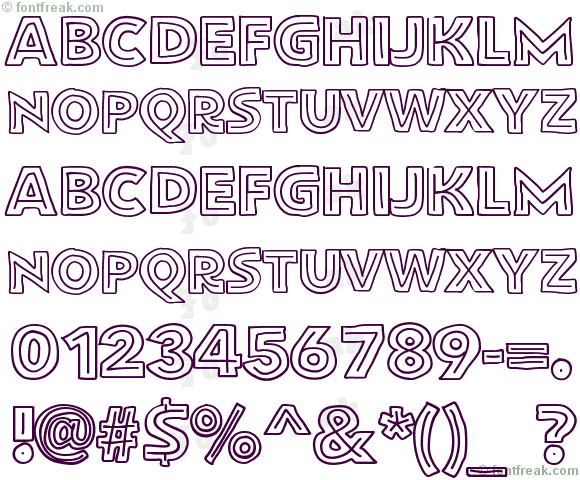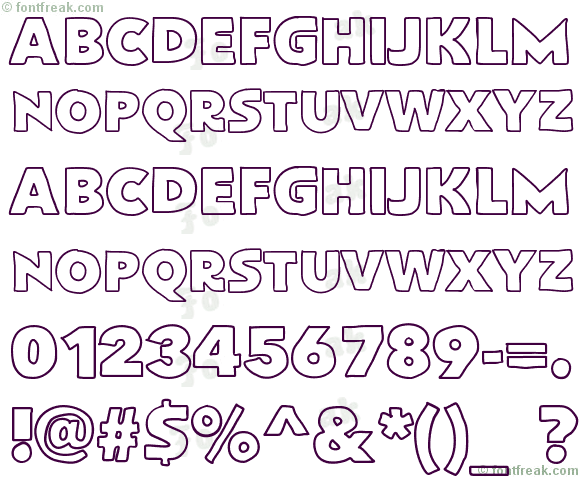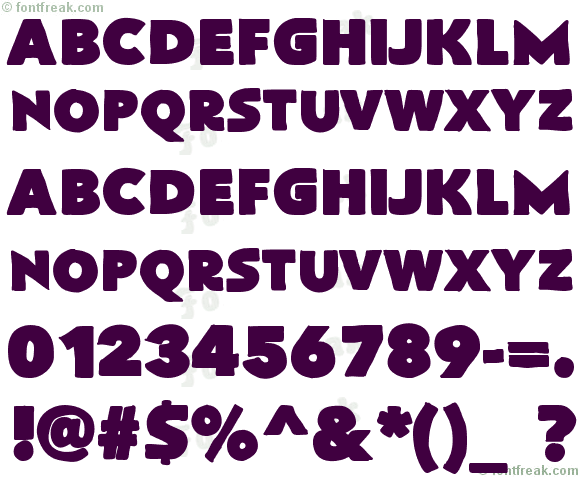
FlatBread
FlatBreadInline
FlatBreadOutline
About FlatBread
FlatBread by Luedecke Design Font Co. is a captivating display font that seamlessly blends modernity with a touch of whimsy. This sans-serif typeface features a unique design characterized by its rounded forms and a friendly, approachable aesthetic. The stroke weight is consistent, offering a smooth visual flow, while the ample spacing between letters enhances readability, making it an excellent choice for a variety of applications.
The FlatBread font is particularly versatile, making it ideal for creative projects ranging from restaurant menus to playful branding for cafes. Its distinctive style shines in wedding invitations where a casual yet elegant feel is desired. Additionally, the font works beautifully on movie posters, adding a touch of modern flair to promotional materials. Content creators will find it useful for social media graphics, providing a fresh and inviting look that captures attention. Graphic designers can leverage this font for logos, ensuring that their designs stand out in a crowded marketplace.
What sets FlatBread apart is its unique blend of playfulness and elegance. The font's rounded edges and balanced proportions create a friendly vibe, while its clean lines maintain a professional appearance. This balance ensures that it can be employed in both casual and formal contexts, making it a standout choice for anyone looking to make a lasting impression. For those interested in this distinctive typeface, a FlatBread font free download is readily available, inviting you to incorporate its charm into your next project.